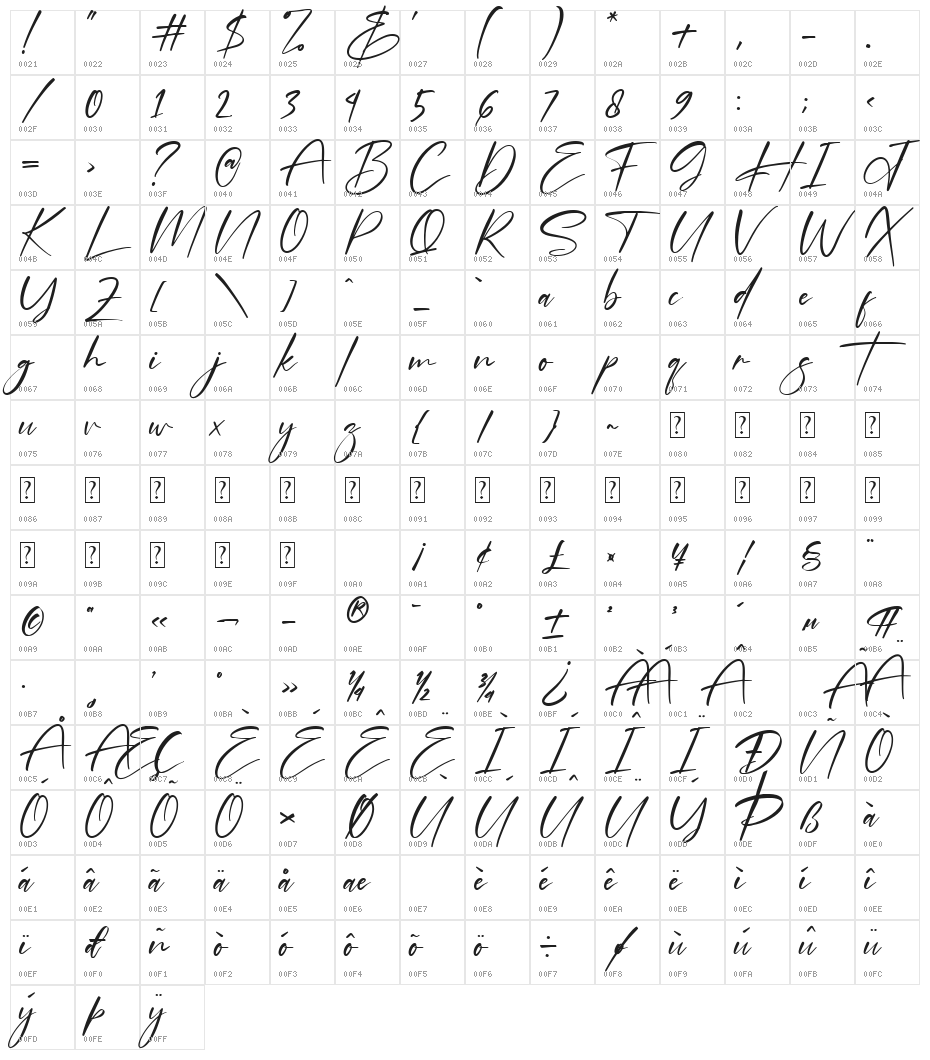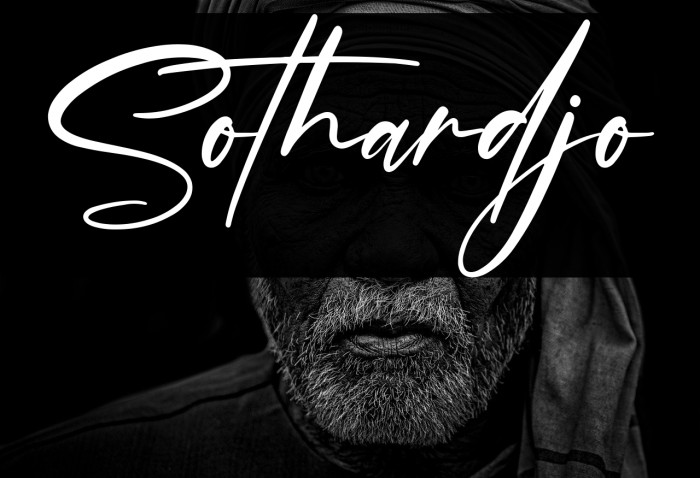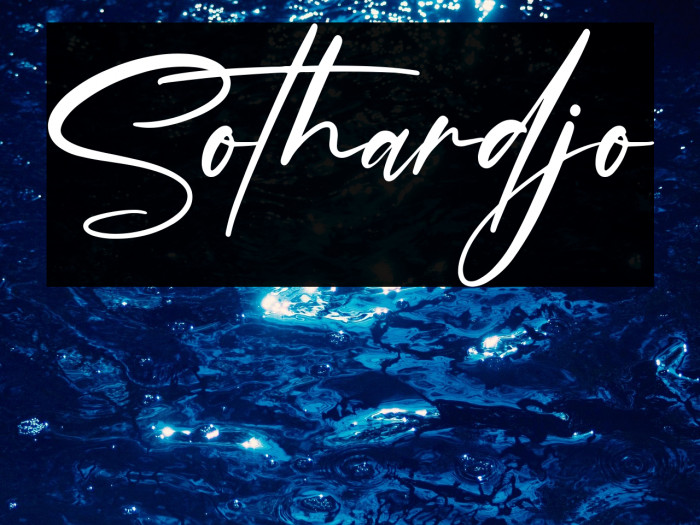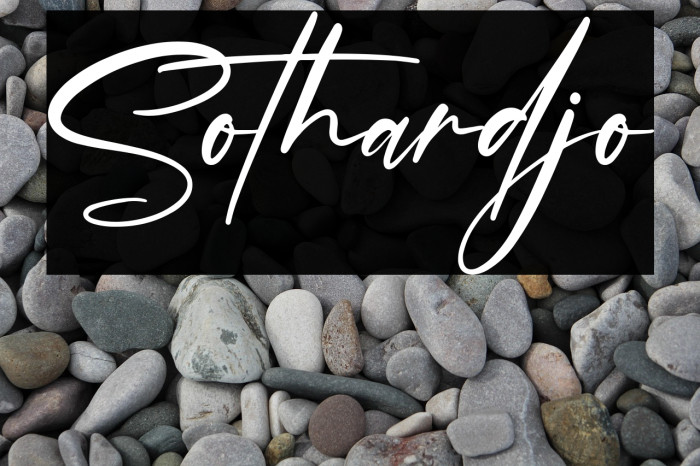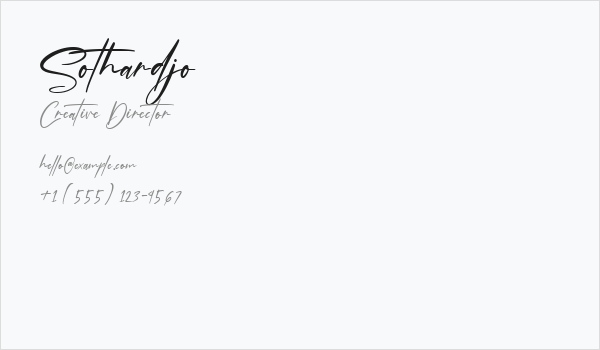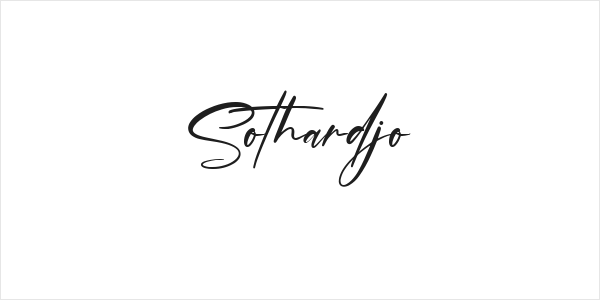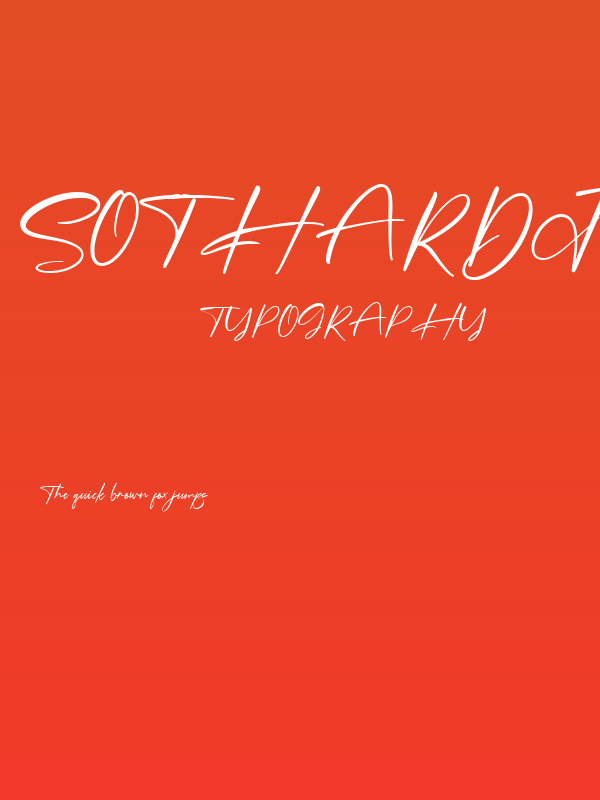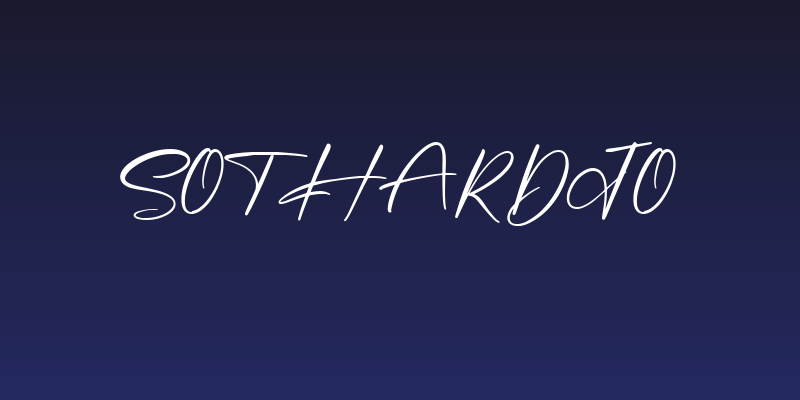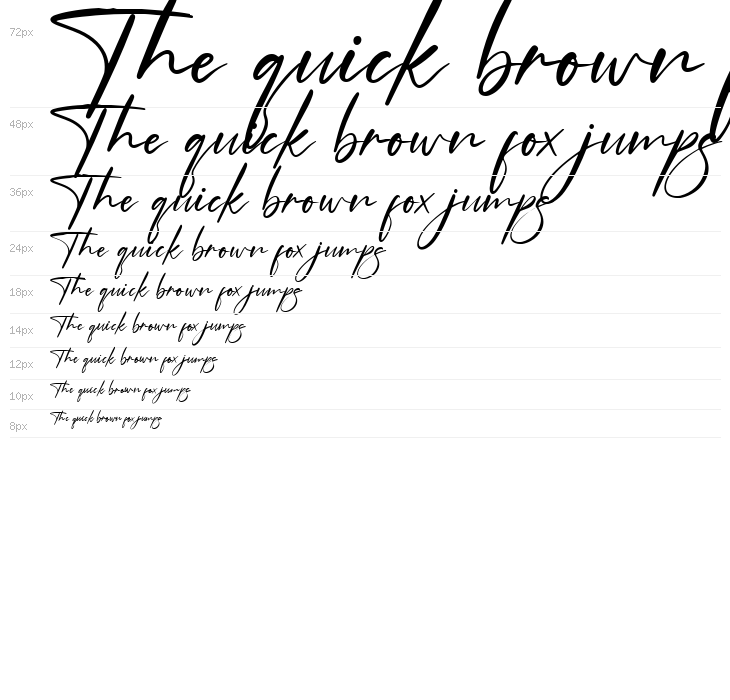
Sothardjo Font
Sothardjo Description
A handwritten script font with a casual and flowing style, featuring varying stroke widths and a natural, personal touch.
| Overall Style | Casual, Personal |
| Use Case | Logos, Invitations, Personal notes |
| Proposed Projects | Invitations, personal branding, greeting cards. |